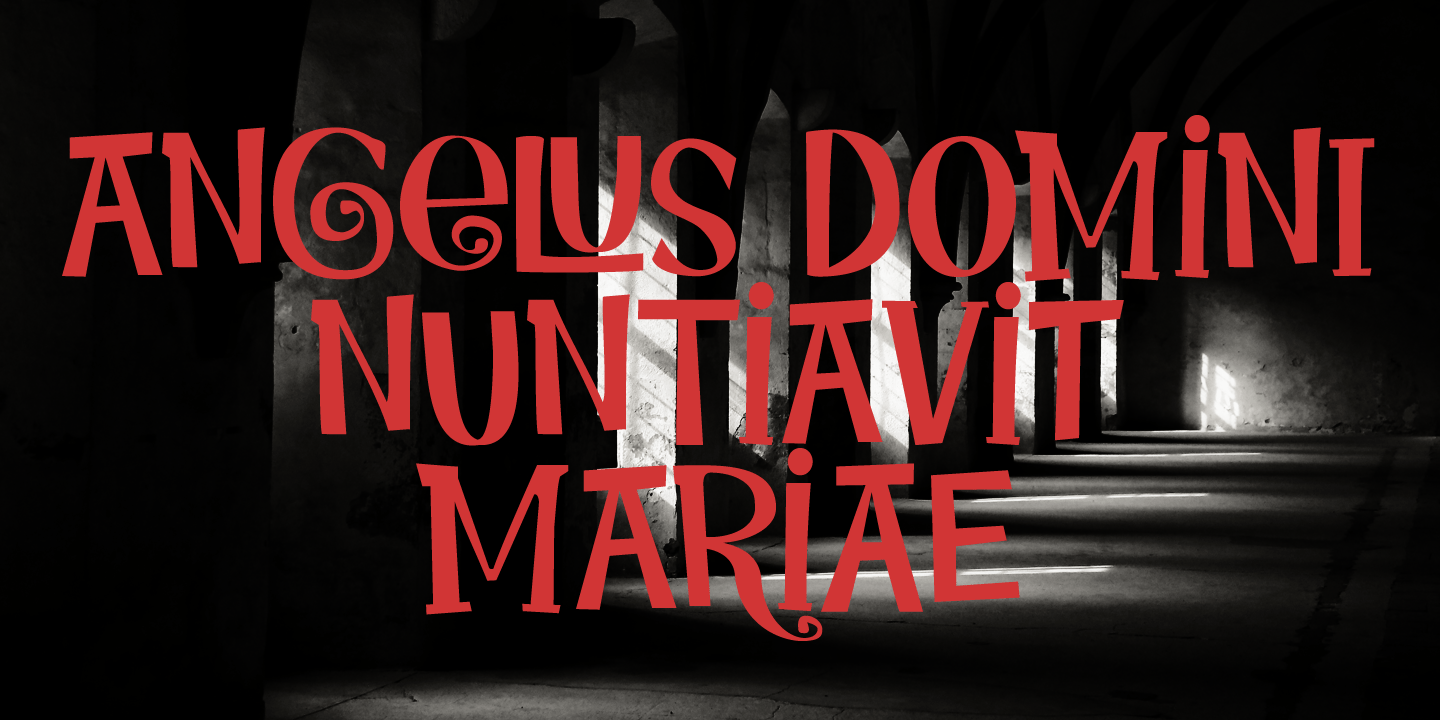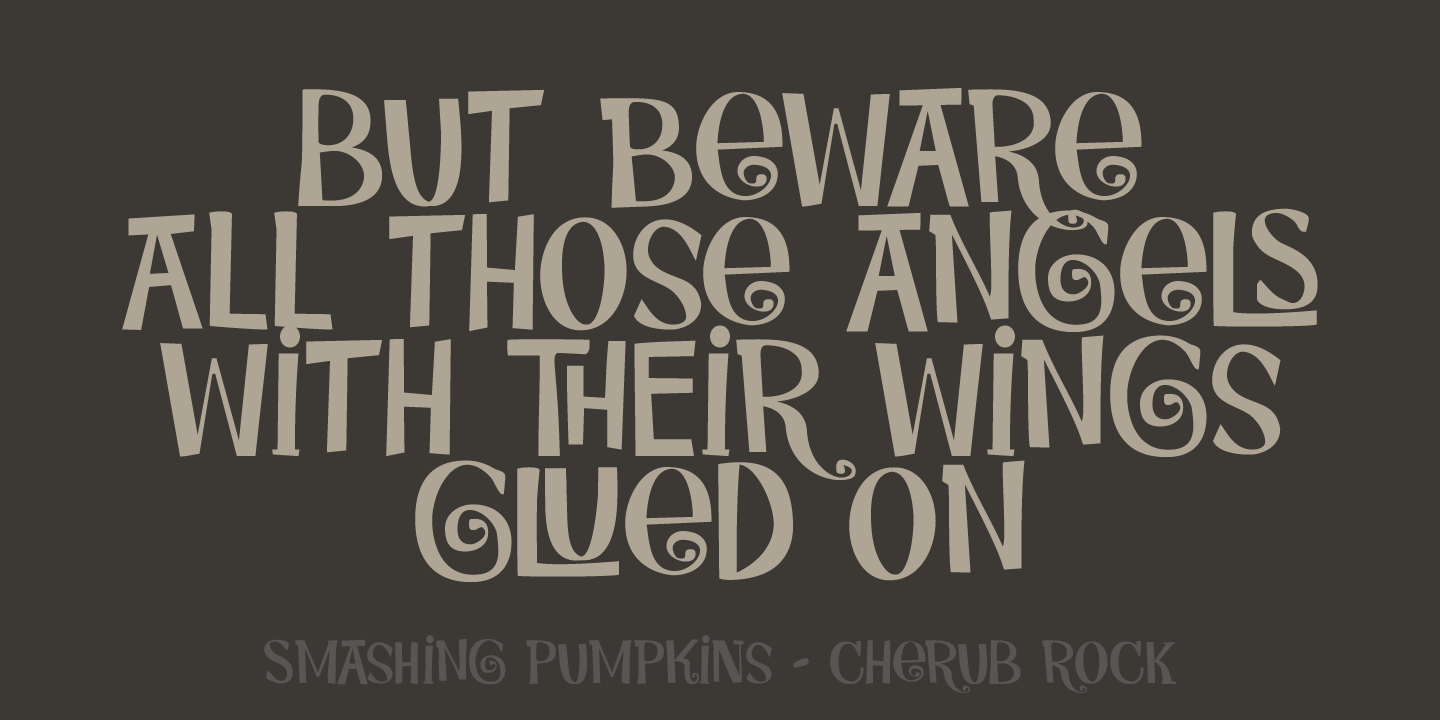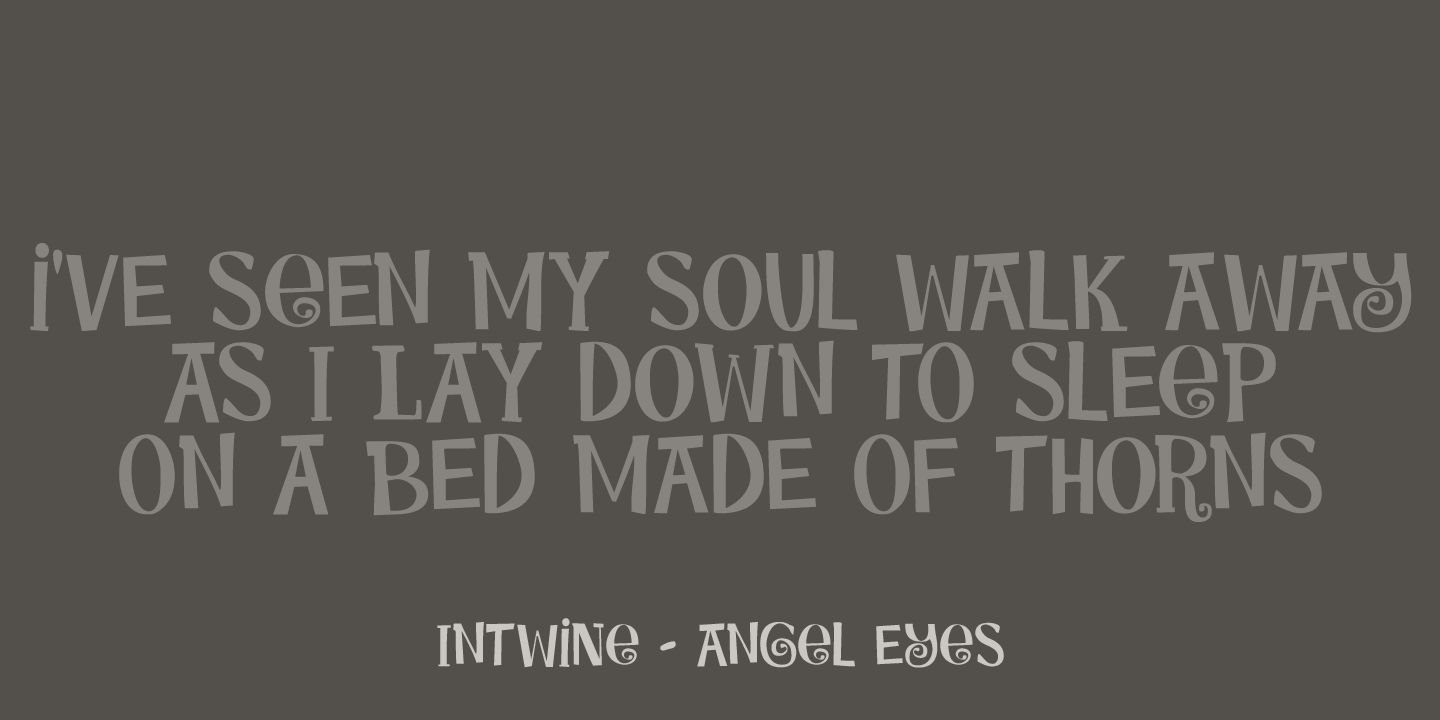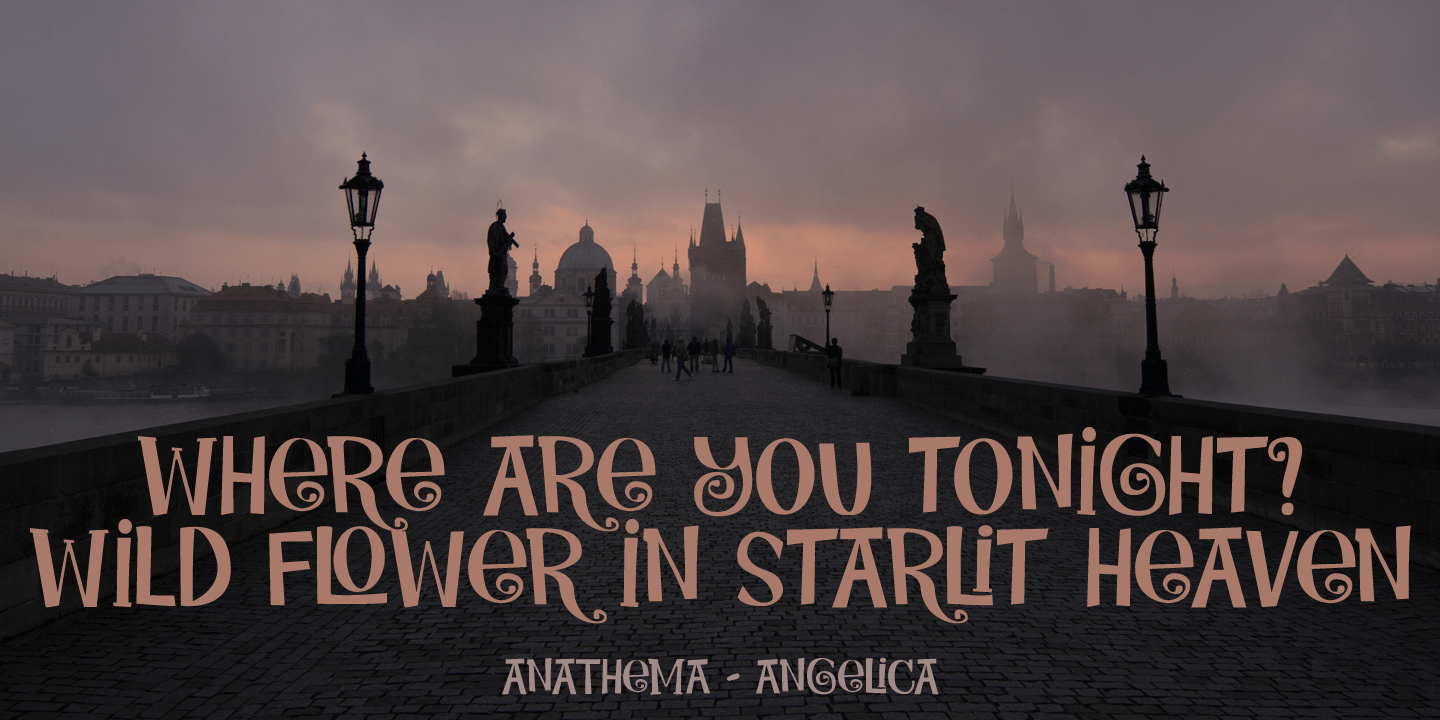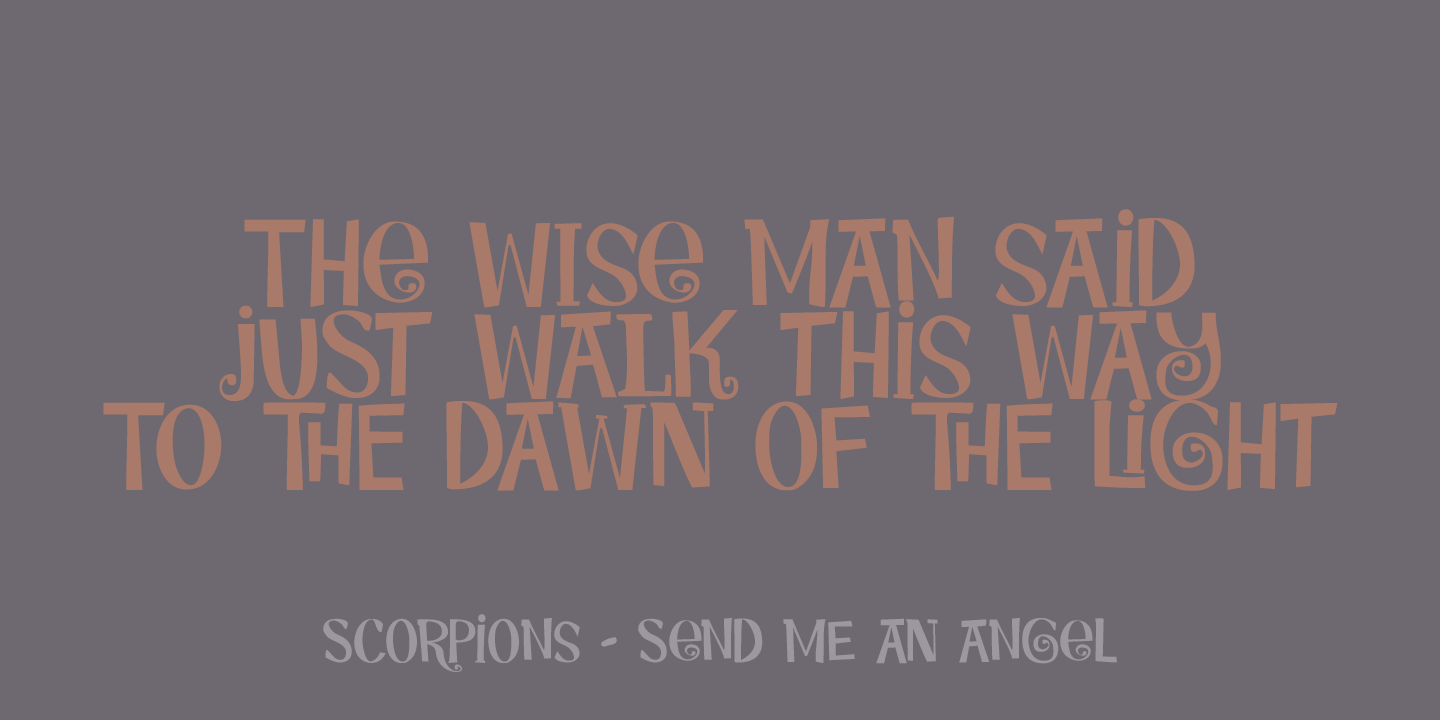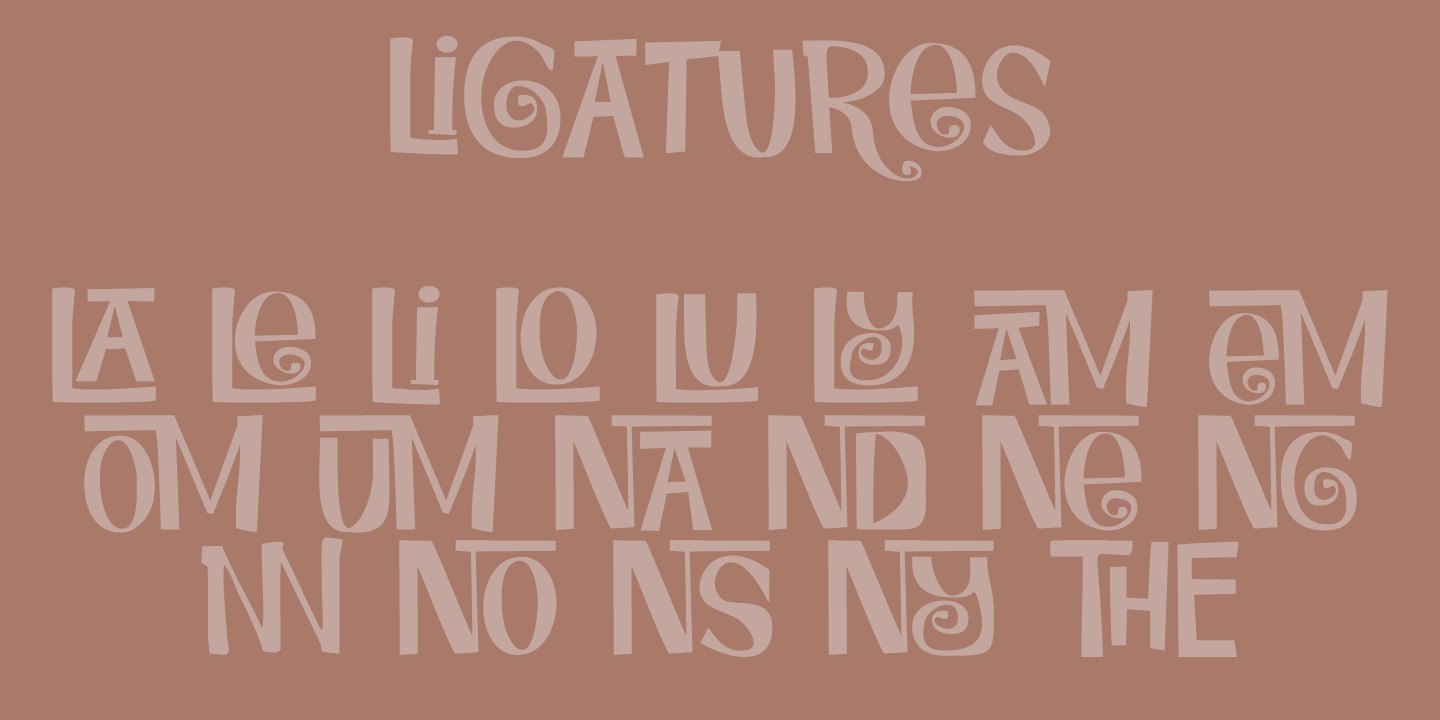
Cherubina
Cherubina means ?Blessed?. It is a name derived from the Akkadian ?karabu / kuribu?, meaning ?blessing, blessed?. A cherub is a type of spiritual being mentioned in the Hebrew Bible, often depicted as a baby with wings. This font was based on the hand lettering I found on a 1962 Japanese poster for the movie ?Mother Joanna Of The Angels?. The poster was designed by Hiroyoshi Oshima.
Cherubina font is an all caps font (upper and lower case differ and can be used together) with a medieval feel to it. I tried to keep the 'spirit? of Hiroyoshi Oshima's lettering, but changed the glyphs and designed most of them myself, as I had nothing but the title of the poster to work with. I have added some ligatures as well.
Comes with my blessing and an eternity of diacritics.